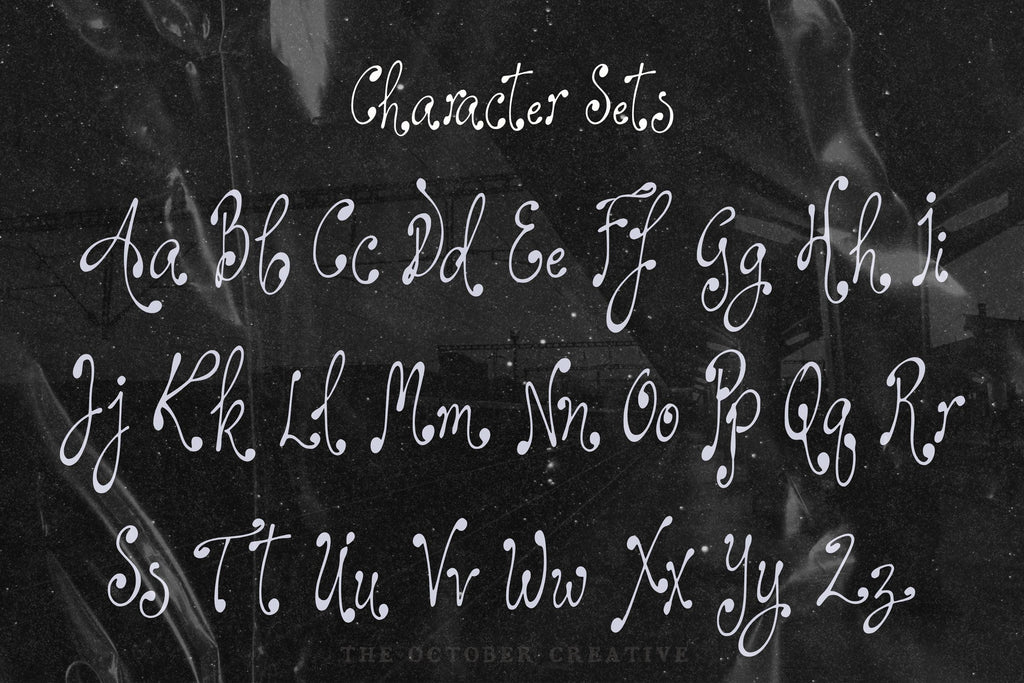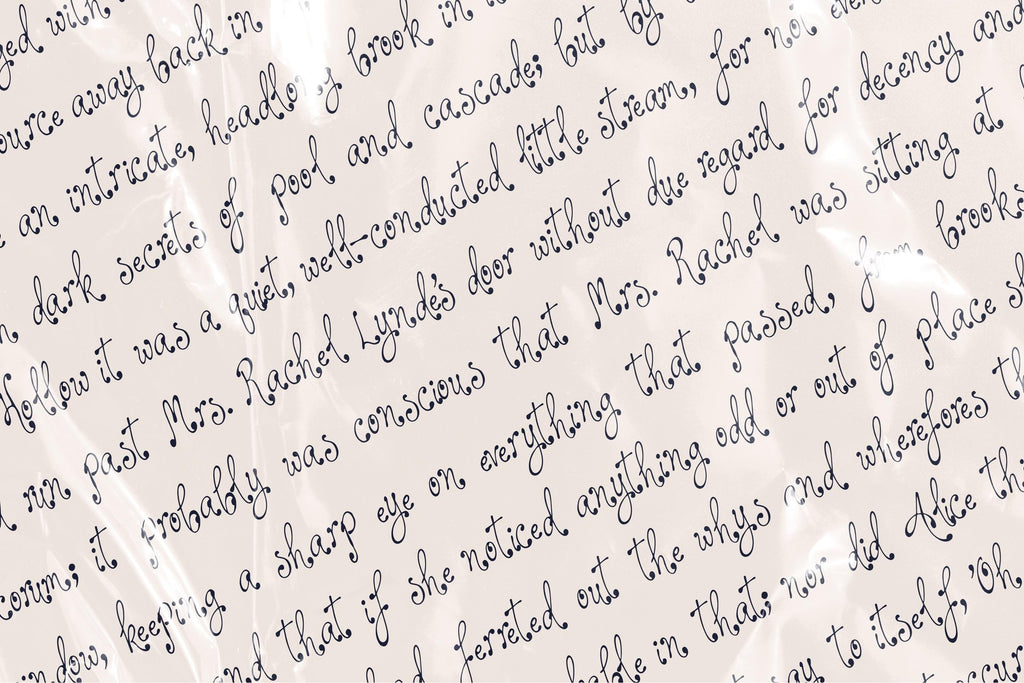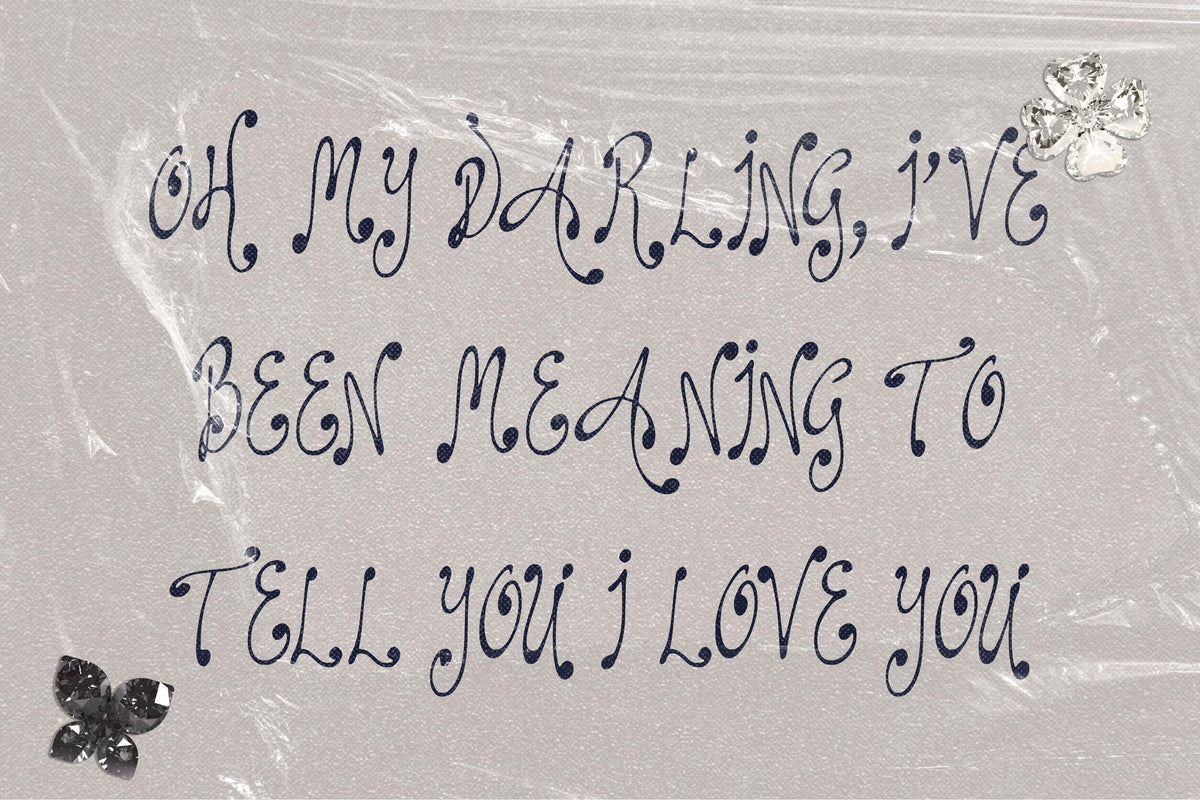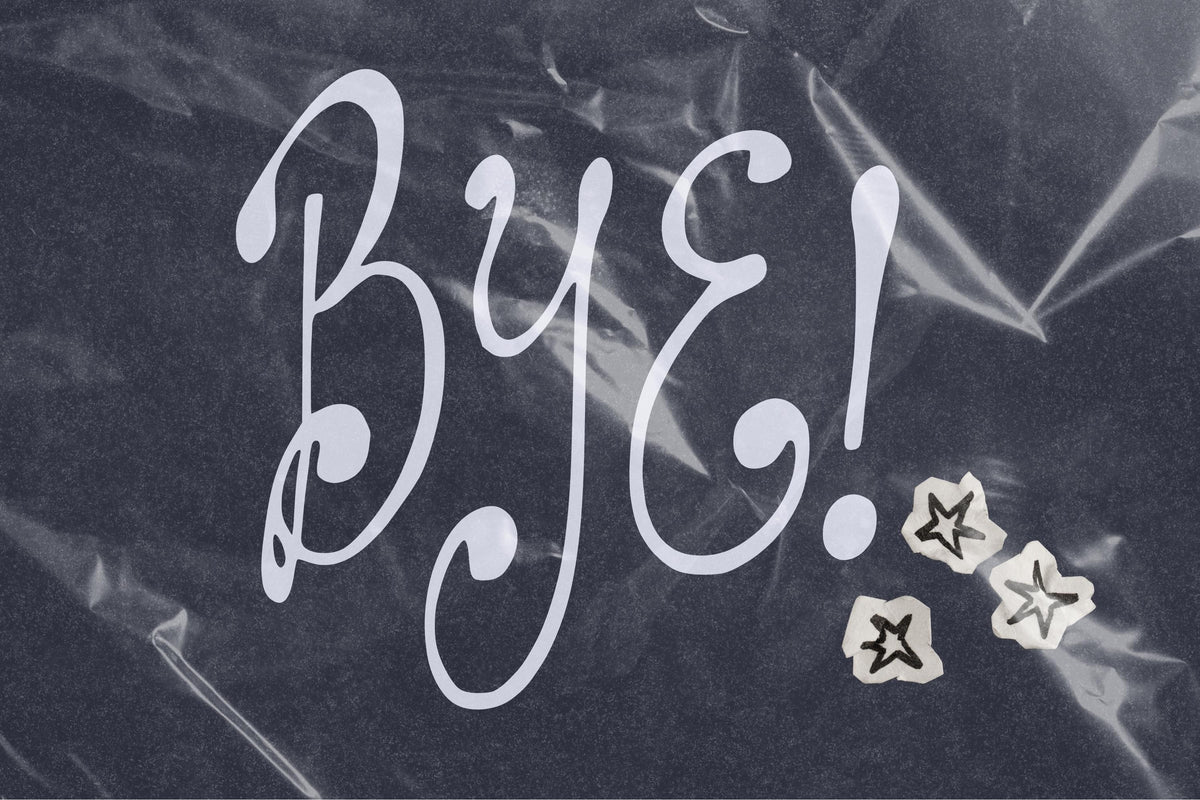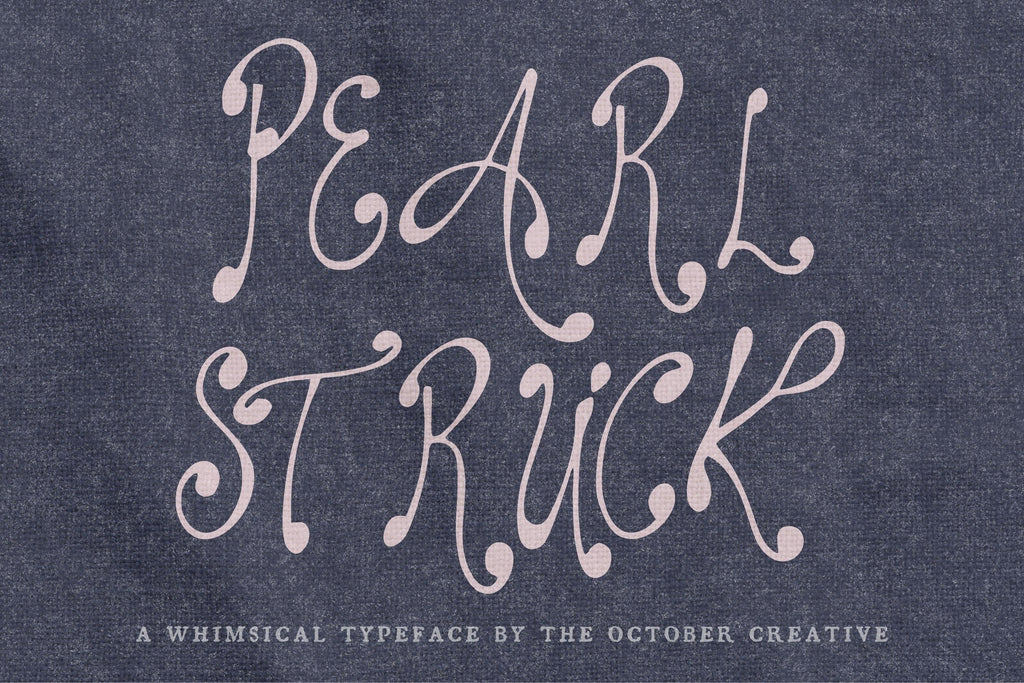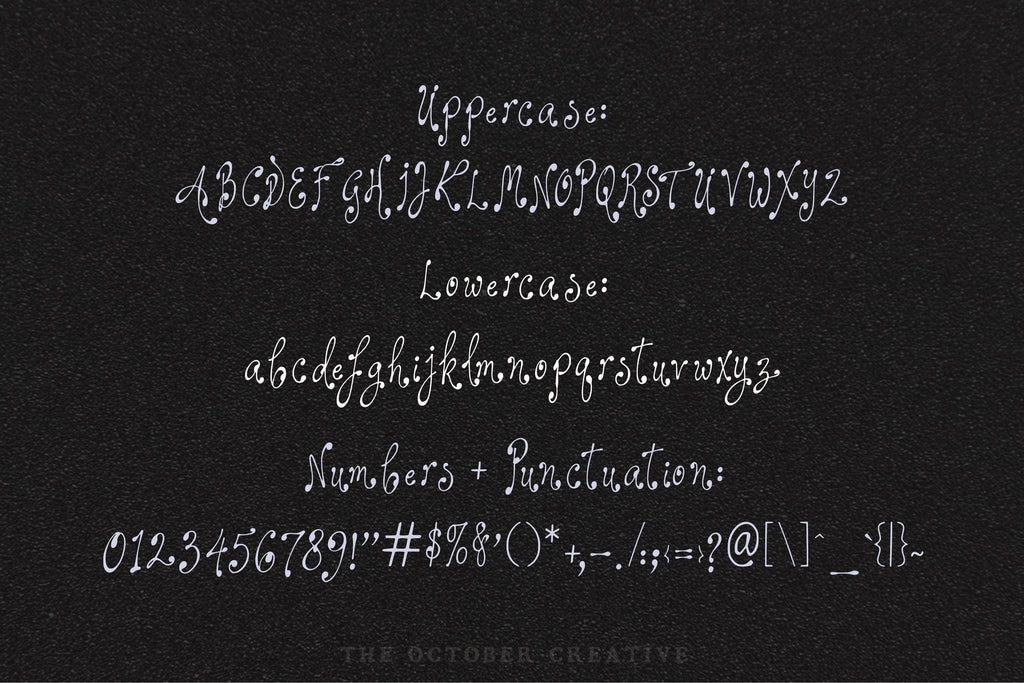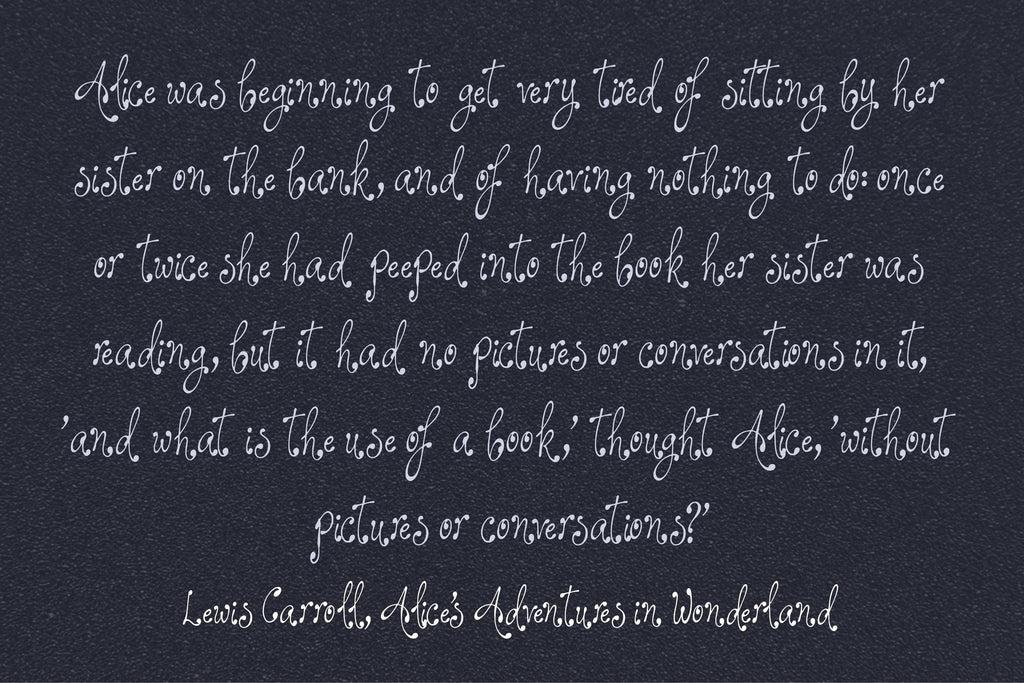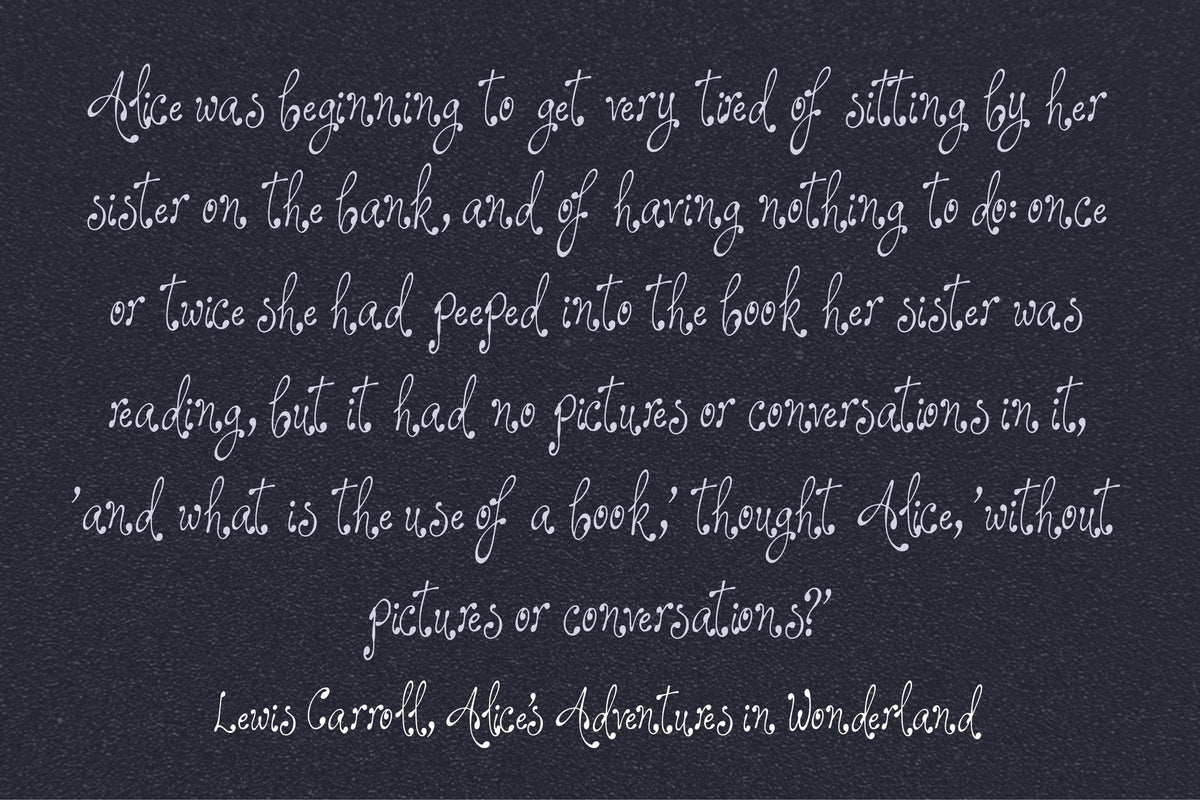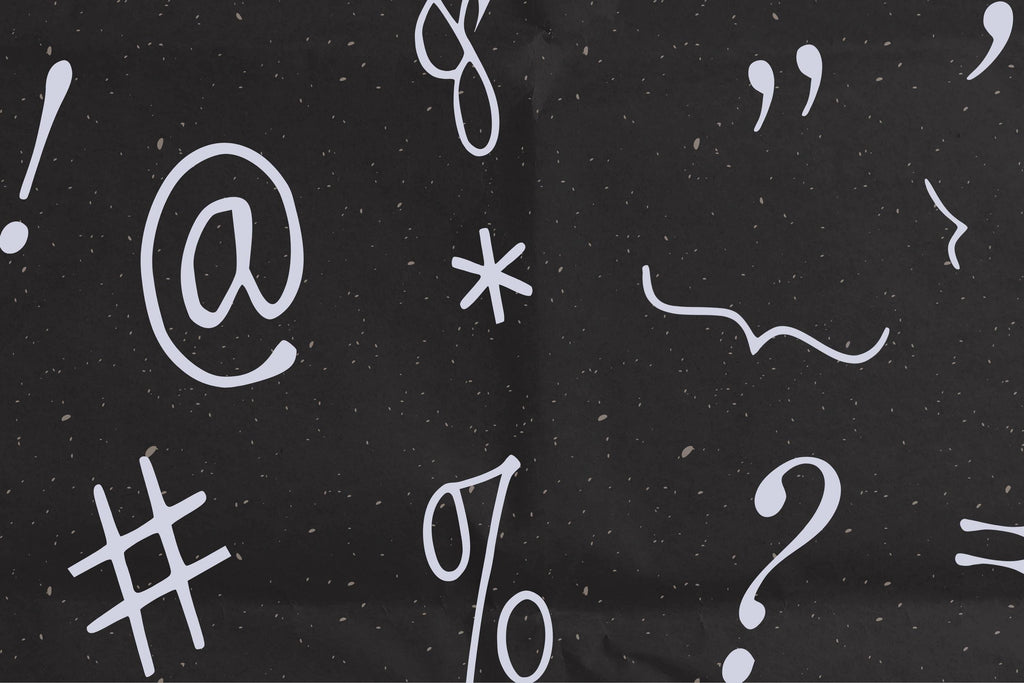
Pearlstruck Font
Pearlstruck sweeps your words into a flowing script with soft curves and long, lovely loops. Use it for romantic stickers, wedding stationery, and gift tags that deserve a little flourish.